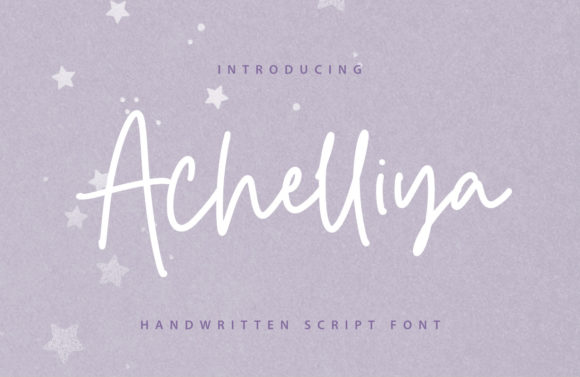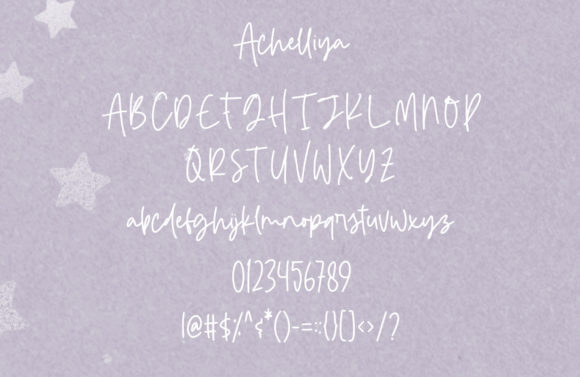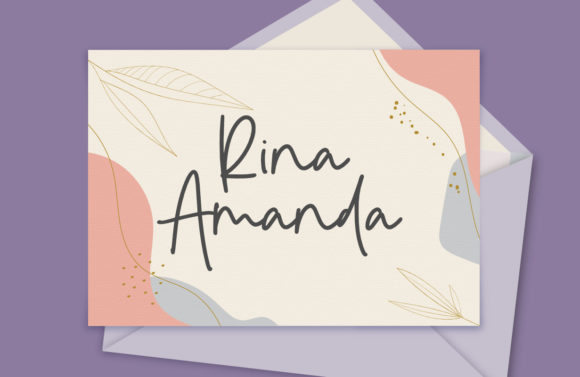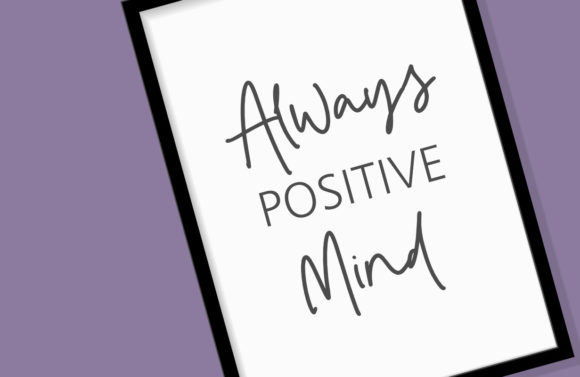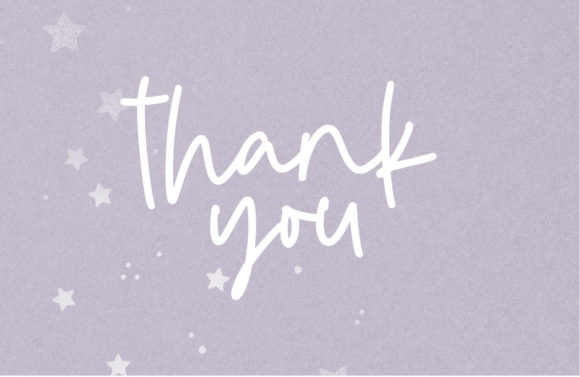
Achelliya Font
About Achelliya Font
Achelliya is a quirky handwritten font, described by a casual and relaxed touch, perfect for your favorite projects. This dazzling font will turn any creative idea into a standout!